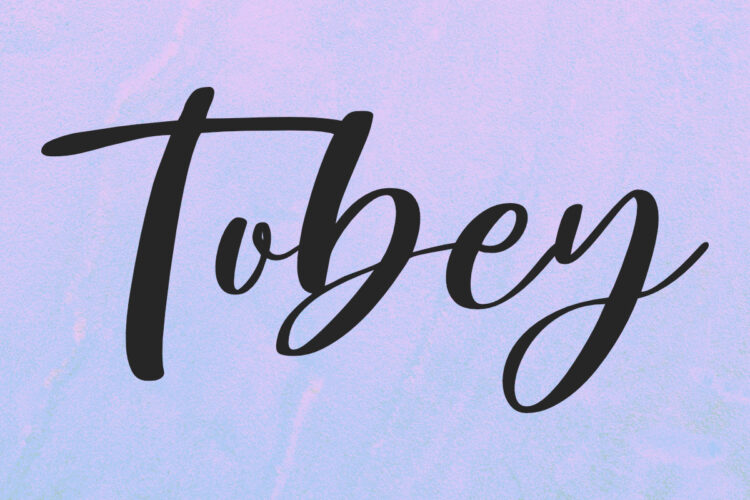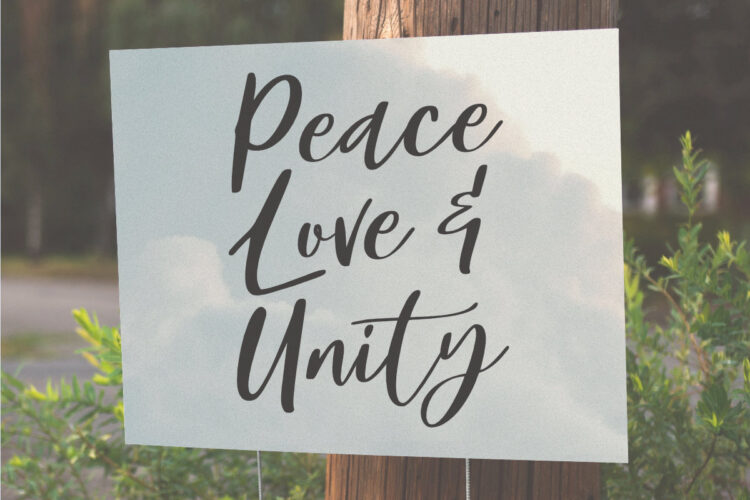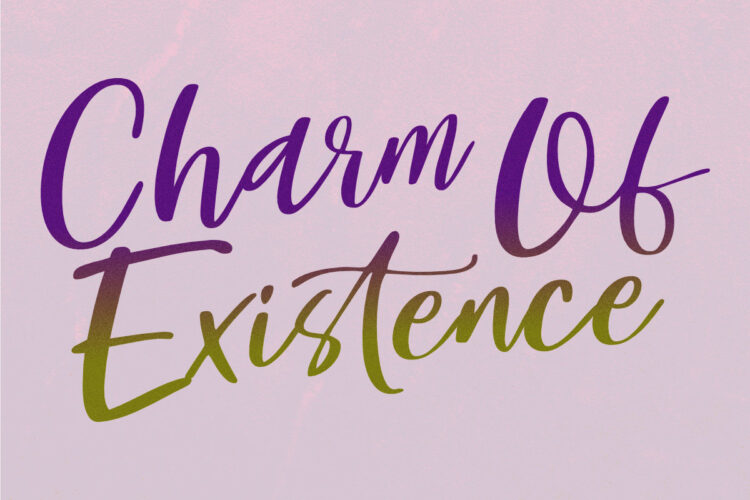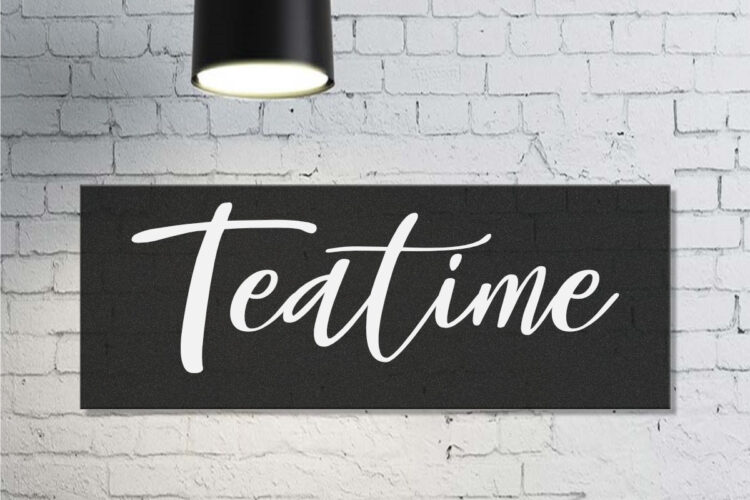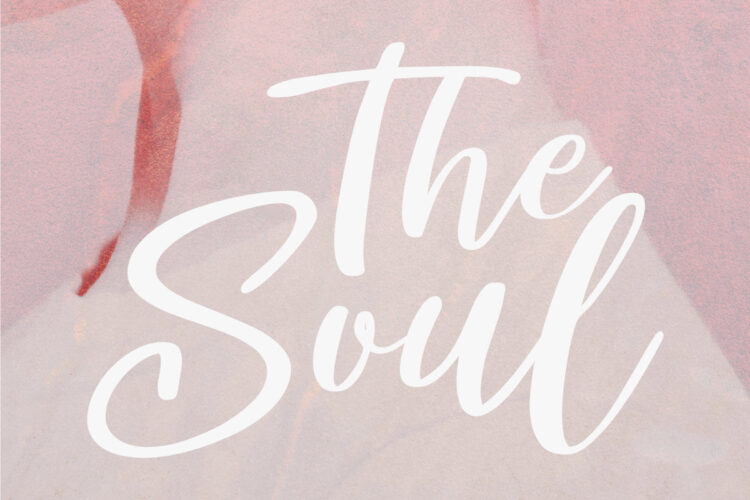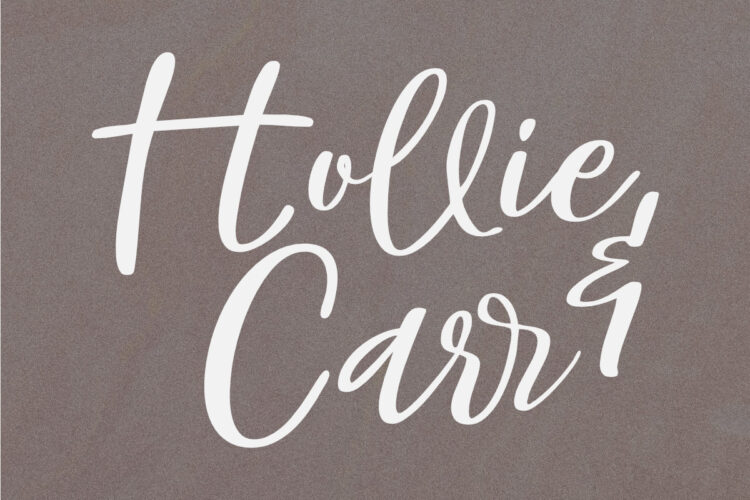
Tobey is a fun script font. It’s also elegant and lively, a perfect choice for logos, branding, quotes, and more. Use this font to create a signature style on your design and make it stand out from the crowd.